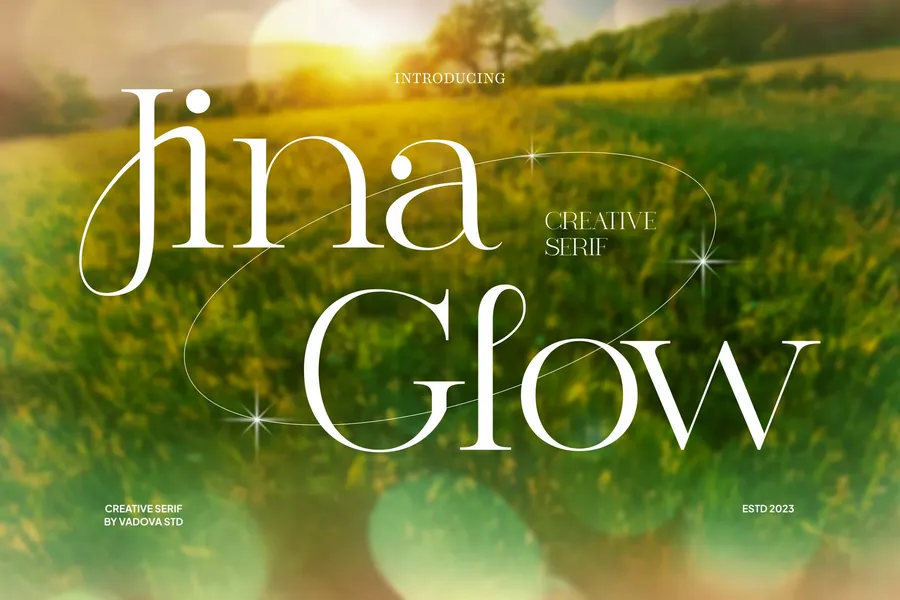
Jina Glow Serif Font
Jina Glow radiates elegance with a futuristic twist — a display serif font designed to captivate attention with every letter. Its sophisticated curves and luminous energy give it a commanding presence that works beautifully across digital and print platforms.
This font blends modern editorial aesthetics with a fashion-forward appeal, making it the perfect choice for Instagram creators, luxury product branding, beauty packaging, and high-end lifestyle magazines. Whether you’re crafting a standout campaign headline, an editorial layout, or social media graphics, Jina Glow ensures your message shines with clarity and style.
The letterforms are sculpted with sharp, tapered serifs and subtle contrast in stroke width, delivering a sense of both refinement and impact. It’s not overly ornamental, but it’s far from minimalist—perfectly balancing statement and sophistication. Each character carries a modern editorial tone while maintaining legibility, even at smaller sizes.
Jina Glow performs best in brand identity projects, headline typography, poster design, packaging, and fashion campaigns—anywhere your message needs to feel refined, radiant, and relevant.
Jina Glow Suitable for for fashion editorials, skincare packaging, Instagram posts, luxury branding, product labels, magazine covers, minimalist posters, statement t-shirts, book titles, influencer media kits, website headers, digital lookbooks, creative agency identities, elegant wedding invitations, modern startup branding, YouTube thumbnails, boutique signage, portfolio websites, visual newsletters, and artistic digital collages.